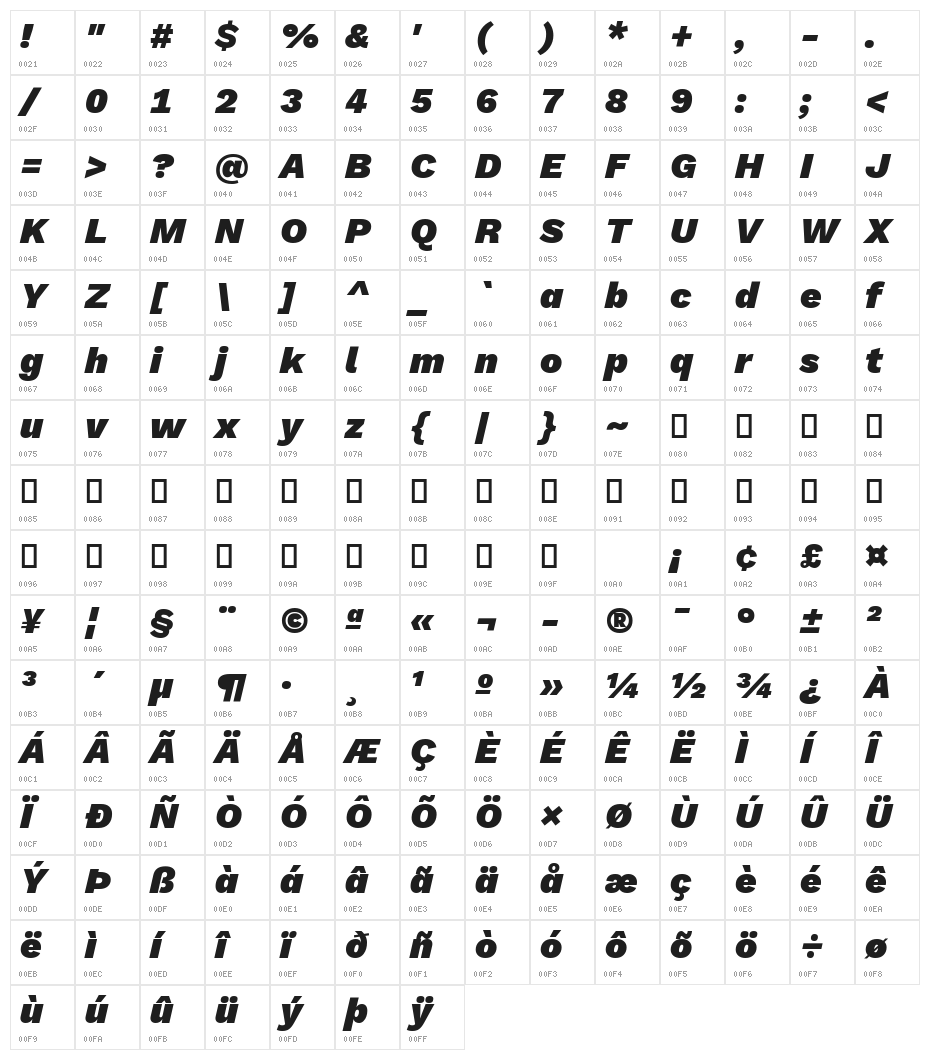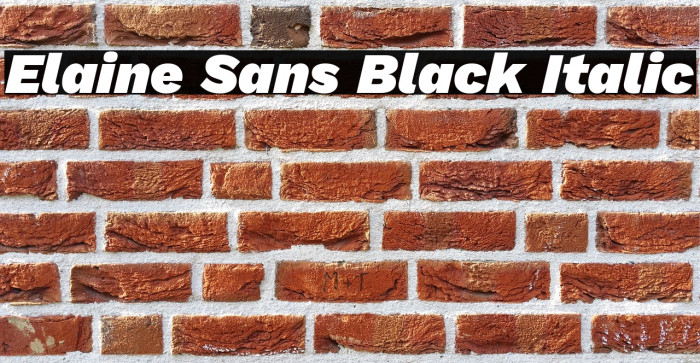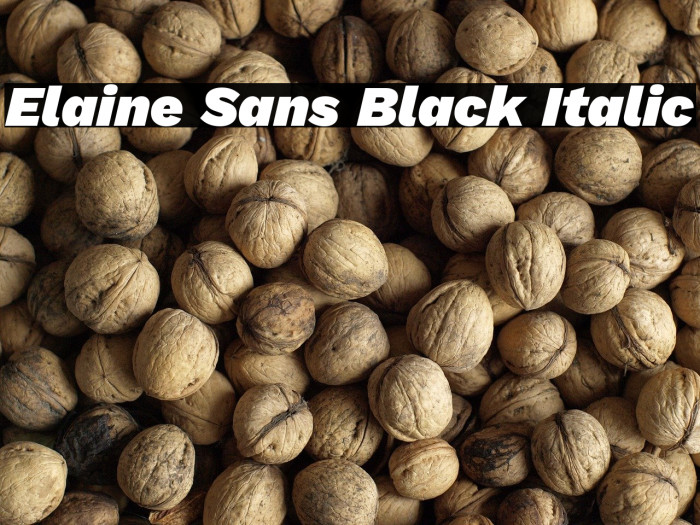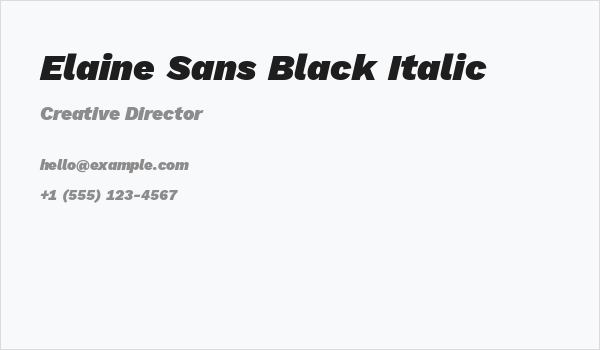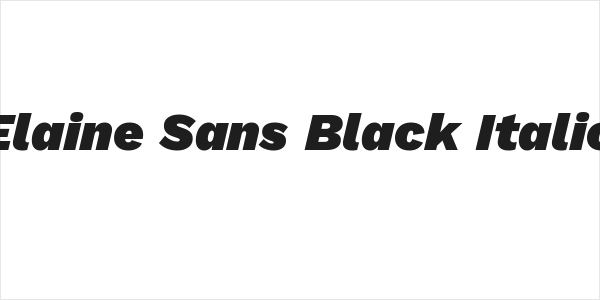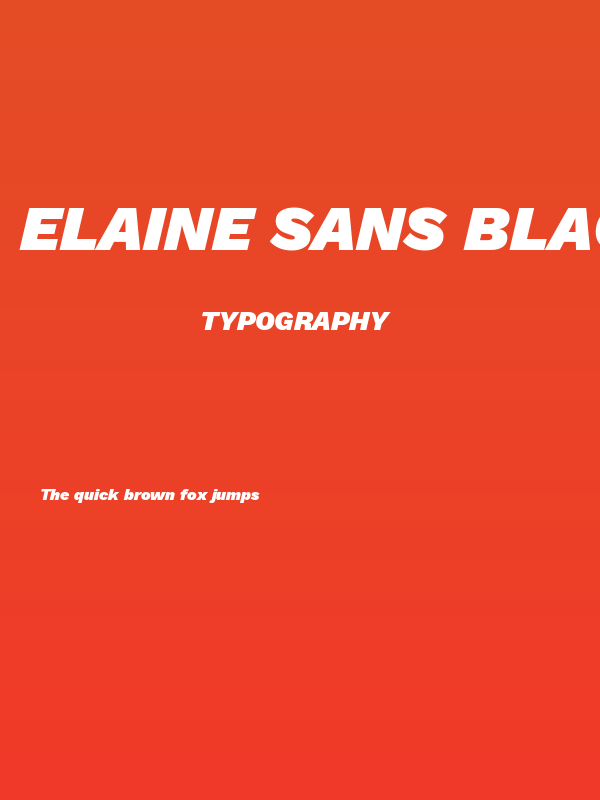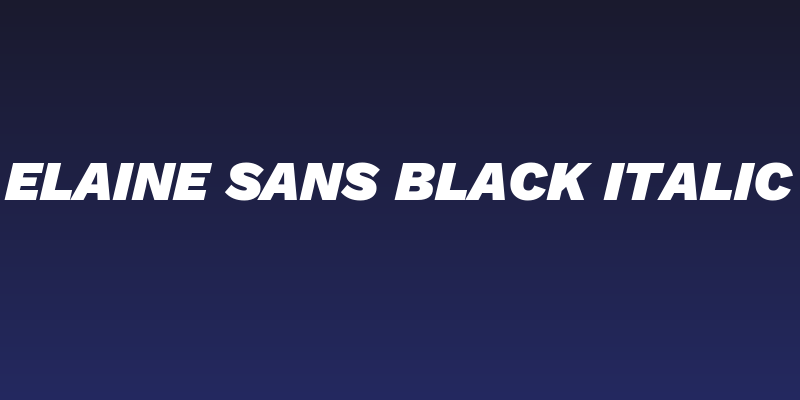
Elaine Sans Black Italic Font
Elaine Sans Black Italic Description
This font is a bold and dynamic sans-serif typeface with a strong presence. Its italic style adds a sense of movement and modernity, making it suitable for attention-grabbing headlines and impactful designs. The characters are well-defined with a consistent stroke width, contributing to its bold appearance. The uppercase and lowercase letters maintain a uniform style, ensuring readability and visual harmony. The numbers and special characters are designed to match the overall aesthetic, providing a cohesive look across all elements.
| Proposed Projects | Ideal for branding, advertising, headlines, and any project requiring a strong, modern typeface. |